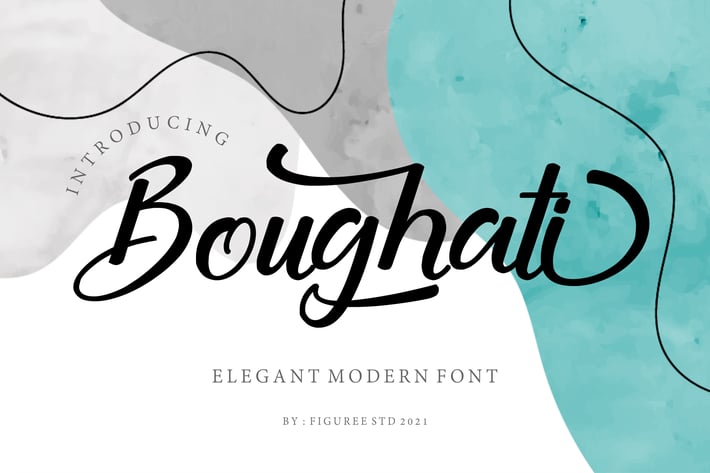
Boughati - Elegant Modern Font
Introducing Boughati
Boughati is Elegant Modern Font font that combines attractive curves with a fresh urban edge; delivering a stylish modern font that is guaranteed to add an eye-catching appeal to your logo designs, brand imagery, handwritten quotes, product packaging, merchandise, social media post, or website font.
- Versatile for branding, headline, or printing product